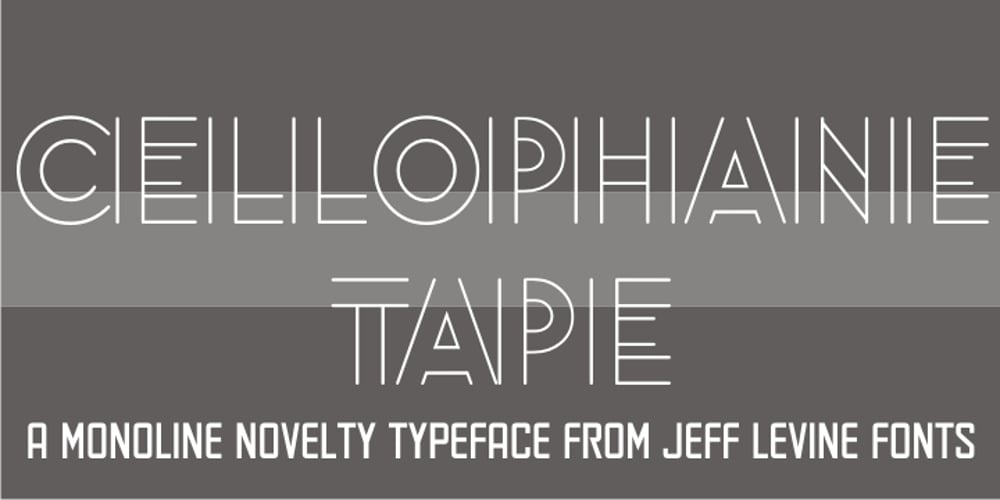
Cellophane Tape JNL Font Family was designed by Jeff Levine and published by Jeff Levine. Cellophane Tape JNL contains 1 styles and family package options. Cellophane Tape JNL is a stripped-down and slightly modified version of Eckhardt Trilinear JNL with open-ended letters. While the name Cellophane Tape JNL is nostalgic (tape is no longer made from cellophane), its still a fun, novelty font for many applications.